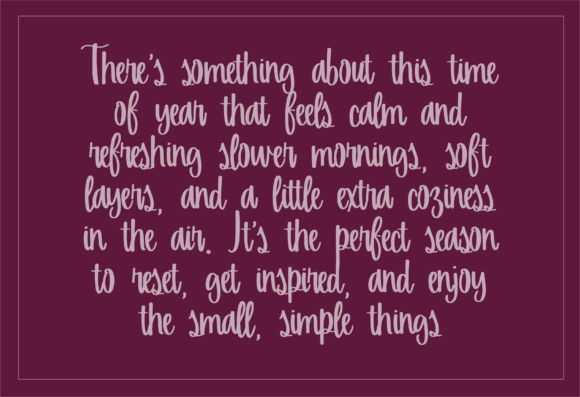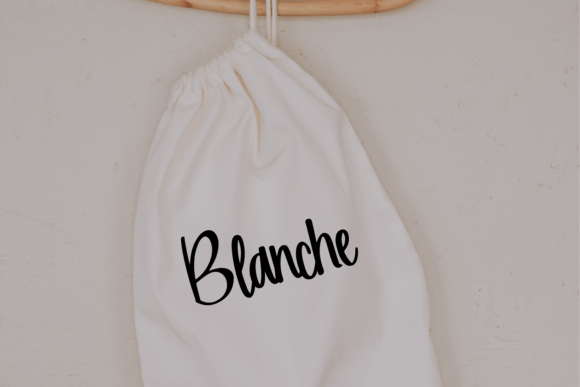
Delightful Backyard Font: Add a Touch of Whimsy to Your Designs
Are you looking for a font that can bring a dash of personality and charm to your designs? Look no further than Delightful Backyard, an expressive brush script font that’s perfect for creative projects that need to feel personal, handmade, and fun. With its bold texture and energetic, bouncy letterforms, this typeface is sure to capture the attention of your audience and leave a lasting impression.
The Authentic Look and Feel of Handcrafted Design
Delightful Backyard is defined by its authentic, slightly rough edges characteristic of a loaded brush pen. This gives the font a warm, tactile feel that’s reminiscent of handcrafted designs. The playful shifts in baseline and the varied weight within strokes enhance its lively, unique personality, making it perfect for designers who want to add a touch of whimsy to their work.
Delightful Backyard is ideal for a wide range of creative projects, including children’s branding and products, handmade craft labels, home decor designs, informal social media graphics, vibrant apparel design, DIY tutorials, and more. Whether you’re designing for a client or working on a personal project, this font is sure to bring a smile to your audience’s face.
Key Features of Delightful Backyard Font
- Bold Texture: Delightful Backyard features a bold texture that gives it a unique, handcrafted look and feel.
- Energetic Letterforms: The font’s energetic, bouncy letterforms are sure to capture the attention of your audience and add a touch of personality to your designs.
- Authentic Look and Feel: The font’s slightly rough edges and varied weight within strokes give it an authentic, handcrafted look and feel.
- Full Complement of Characters: Delightful Backyard includes a full complement of standard characters and glyphs, ensuring a seamless, authentic flow across words.
Why Choose Delightful Backyard Font?
There are many reasons why Delightful Backyard font stands out from the crowd. Here are just a few:
- Unique and Eye-Catching: Delightful Backyard is a truly unique and eye-catching font that’s sure to capture the attention of your audience.
- Versatile: The font is versatile and can be used for a wide range of creative projects, from children’s branding to DIY tutorials.
- Easy to Read: Despite its bold texture and energetic letterforms, Delightful Backyard is easy to read, making it perfect for designs that need to convey a message.
- Handmade Look and Feel: The font’s handmade look and feel add a touch of personality and charm to your designs, making them stand out from the crowd.
Tips for Using Delightful Backyard Font
Here are a few tips for using Delightful Backyard font in your designs:
- Use it for Headlines: Delightful Backyard font is perfect for headlines and titles, where its bold texture and energetic letterforms can really shine.
- Pair it with Other Fonts: The font pairs well with other fonts, especially those with a more traditional or serif look. This can create a nice contrast and add visual interest to your designs.
- Experiment with Colors: Delightful Backyard font looks great in a wide range of colors, from bright and bold to pastel and soft. Experiment with different colors to find the one that works best for your design.
Delightful Backyard font is a unique and eye-catching font that’s perfect for creative projects that need to feel personal, handmade, and fun. With its bold texture, energetic letterforms, and authentic look and feel, this font is sure to capture the attention of your audience and leave a lasting impression. Whether you’re designing for a client or working on a personal project, Delightful Backyard font is a great choice for adding a touch of whimsy and charm to your designs.